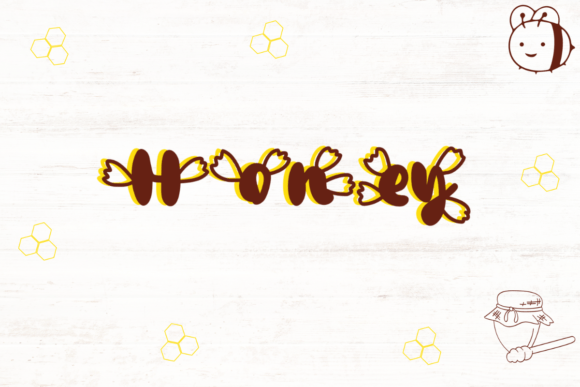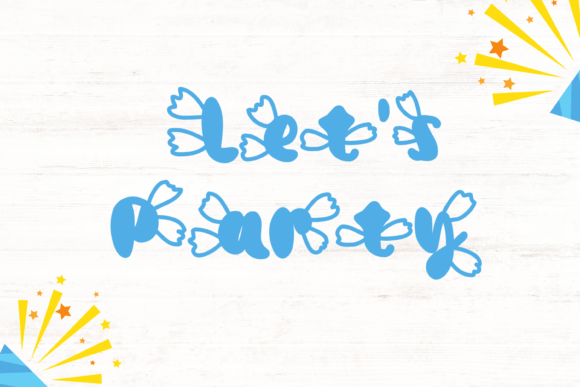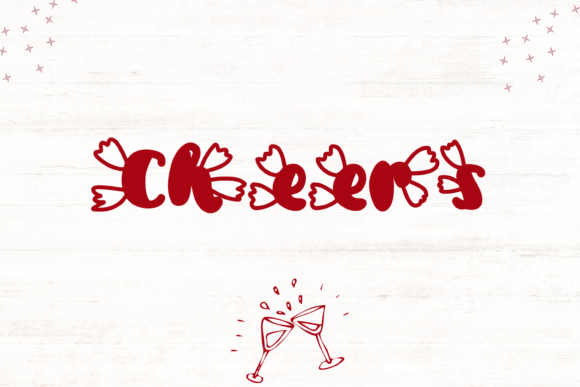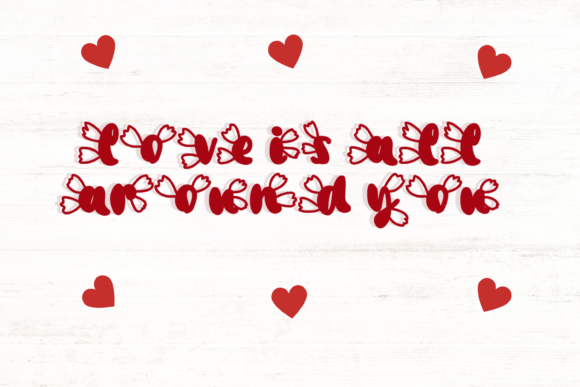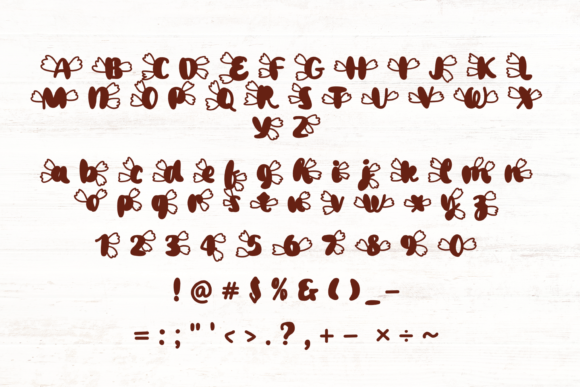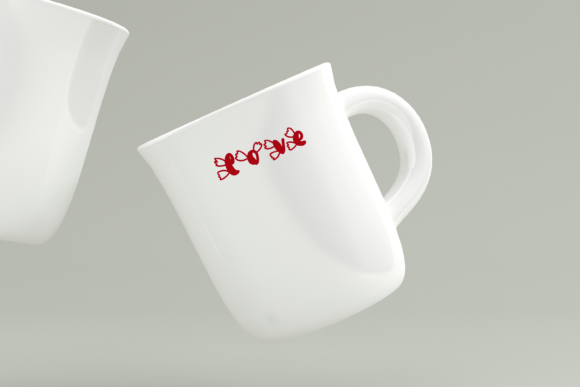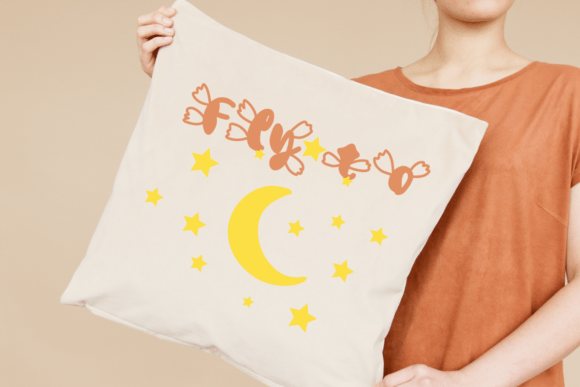
Unleash Your Creativity with Honey Font
You know that moment when you’re brainstorming ideas for a new project and suddenly, a spark of inspiration hits you? The words start flowing, and your mind is flooded with visions of color, texture, and typography. For designers, that moment is a gift – and the right font can make all the difference. That’s where Honey Font comes in, a modern yet whimsical display font that will transport your designs to a magical world.
Whether you’re creating a beautiful wedding invitation, a bold flyer, or a captivating social media post, Honey Font is the perfect companion to bring your ideas to life. Its unique style and versatility make it an invaluable asset for any designer looking to add a touch of personality to their work. With Honey Font, you can create designs that are truly one-of-a-kind and leave a lasting impression on your audience.
Honey Font Key Features
- Character Set: The font includes a comprehensive set of characters, including Latin, Cyrillic, and Greek alphabets, as well as punctuation marks and symbols.
- Unique Characteristics: Honey Font features a unique, hand-drawn design with subtle imperfections, giving it a warm and inviting feel.
Honey Font Review
First off, I have to say that Honey Font has some great qualities that make it a standout. ✨ The rounded edges and smooth lines give it a friendly, approachable feel that’s perfect for branding and design work. The font also comes in a range of weights, from light to bold, which is super useful for creating visual hierarchy and emphasis.
- ✨ Friendly, approachable feel that’s great for branding and design work
- ✨ Range of weights for creating visual hierarchy and emphasis
- ✨ Supports multiple languages, making it a great choice for global brands
However, there are some limitations to consider. ⚠️ The font can feel a bit too rounded at times, which can make it difficult to read at smaller sizes. Additionally, the font doesn’t have as many ligature options as some other fonts, which can limit its use in certain design contexts.
- ⚠️ Can feel too rounded at times, making it difficult to read at smaller sizes
- ⚠️ Limited ligature options
Overall, I think Honey Font is a solid choice for designers looking for a friendly, approachable font. While it may have some limitations, its strengths make it a great addition to any design toolkit.
Honey Font Practical Application Guide
Tips for Getting the Most Out of Honey Font
To get the most out of Honey Font, use it in conjunction with other design elements, such as images and graphics. Experiment with different font sizes and colors to create visual interest. Additionally, use Honey Font in headings and titles to draw attention to important information.
Honey Font is suitable for various design projects, including:
- Home decor and furniture design
Alternatives to “Honey Font” for Designers
Great Vibes is a modern script font that works well for creative and artistic projects. It’s perfect for designers who want to add a touch of elegance and sophistication to their designs. Compared to Honey Font, Great Vibes has a more refined and polished look, making it suitable for high-end branding and advertising.
Pacifico is a beautiful and elegant script font that’s ideal for designers who want to create a relaxed and beachy vibe. It’s perfect for projects that require a calming and soothing atmosphere, such as travel and wellness brands. Compared to Honey Font, Pacifico has a more laid-back and casual feel, making it suitable for projects that require a friendly and approachable tone.